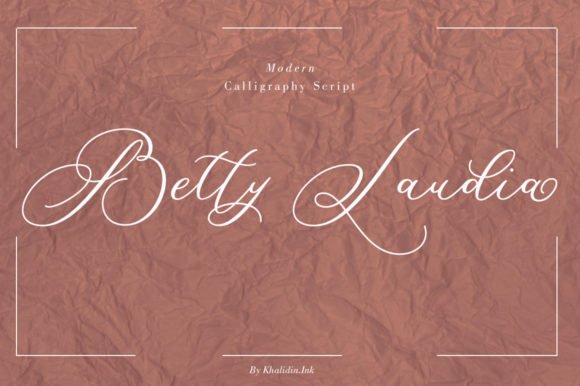
The Elegant Touch of Betty Laudia Font
Have you ever stared at a blank page, feeling uninspired and stuck? You’ve got a design project looming, and you’re desperate for that perfect font to elevate it from ordinary to extraordinary. For many designers, that perfect font is the elusive Holy Grail of typography – and it’s exactly where the Betty Laudia Font comes in.
This stunning modern Calligraphy script font is designed to add an air of elegance and sophistication to any design. With its irregular baseline and dancing characters, it’s perfect for creating a luxurious feel that’s sure to impress. Whether you’re designing a wedding invitation, a logo, or a title, the Betty Laudia Font is sure to add that extra touch of class and refinement that your design needs.
Betty Laudia Font Key Features
- Font Family: Betty Laudia is a script font designed for elegant and sophisticated typography.
- Unique Characteristics: Betty Laudia features a unique blend of calligraphy and script elements, creating a distinctive and eye-catching appearance.
Betty Laudia Font Review
Overall, I think Betty Laudia Font is a decent addition to the world of typography. There are some nice elements that make it stand out. ✨
The most notable aspect of this font is its unique blend of elegance and whimsy. It has a touch of vintage charm that can add a lovely retro feel to any design project. ✨ The font also comes in a range of weights and styles, making it versatile and easy to work with.
While Betty Laudia Font has its charm, it’s not without its limitations. ⚠️ One major issue I’ve noticed is that the font can be a bit difficult to read in certain contexts. The letterforms are quite ornate, which can make them tricky to decipher at small sizes or in busy layouts.
Limitations Continued
- May not be suitable for body text or large blocks of text
- Can be challenging to pair with other fonts due to its unique style
- Lacks a clear hierarchy of weights, making it difficult to create a clear visual structure
Overall, I think Betty Laudia Font is a solid choice for designers looking to add a touch of personality to their projects. However, it’s essential to use it judiciously and in the right context to avoid potential pitfalls.
Betty Laudia Font: A Practical Application Guide
The Betty Laudia font is ideal for:
1. Creating elegant and sophisticated designs.
2. Adding a touch of luxury to your branding materials.
3. Designing invitations, menus, and other formal documents.
1. Use the Betty Laudia font in combination with other elegant fonts for a polished look.
2. Experiment with different font sizes and colors to create visual interest.
3. Pair the font with high-quality images and graphics for a professional finish.
Alternatives to “Betty Laudia Font” for Designers
The Great Vibes Font is a modern script font designed by Handmade Type. It is ideal for creating a friendly, approachable atmosphere in designs such as wedding invitations, food labels, or social media graphics. Great Vibes Font has a more casual feel compared to Betty Laudia Font, making it suitable for everyday use. However, it lacks the elegance and sophistication of Betty Laudia Font.
The Carolyna Pro Font is a modern script font designed by Carolyna Turczyn. It is suitable for creating elegant and sophisticated designs such as branding materials, advertising campaigns, or luxury packaging. Carolyna Pro Font has a more refined feel compared to Betty Laudia Font, making it ideal for high-end designs. However, it may not be as versatile as Betty Laudia Font.
The Alex Brush Font is a handwritten script font designed by Pizzazz. It is ideal for creating a personal, touchable atmosphere in designs such as stationery, greeting cards, or journaling. Alex Brush Font has a more rustic feel compared to Betty Laudia Font, making it suitable for everyday use. However, it may not be as polished as Betty Laudia Font.